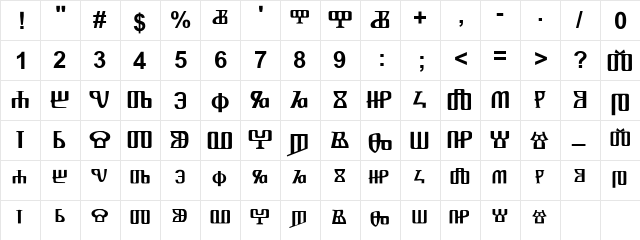
Glagoljica UGL staro Hrvatsko pismo
Design Context for Glagoljica UGL Typeface
Glagoljica UGL takes a measured approach to typography — its balanced proportions and neutral character make it a reliable workhorse for both digital and print work.